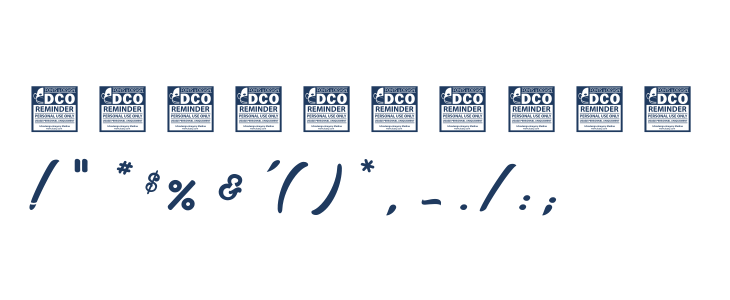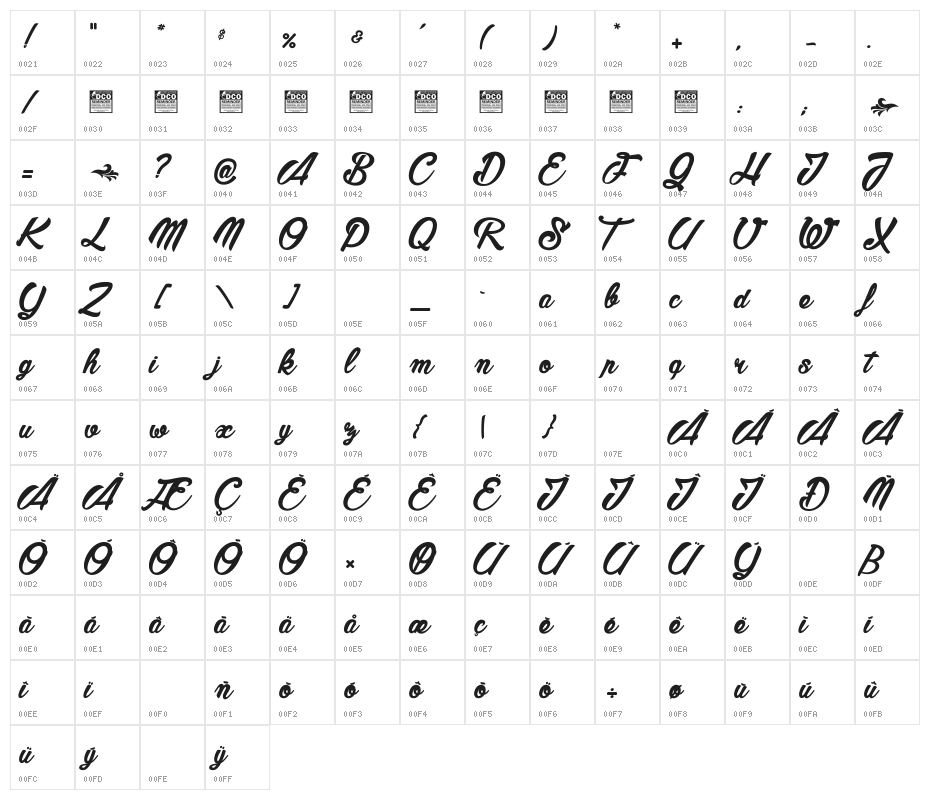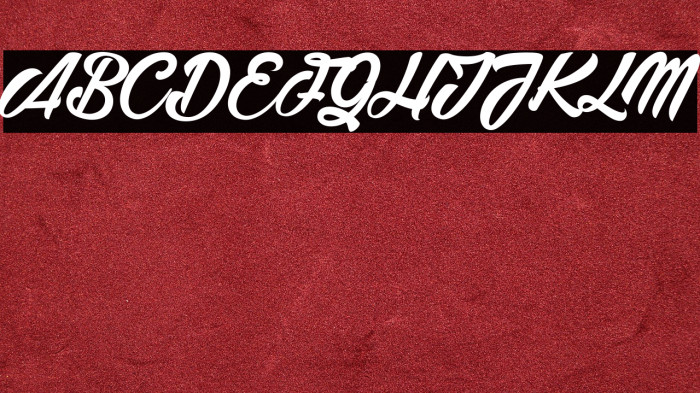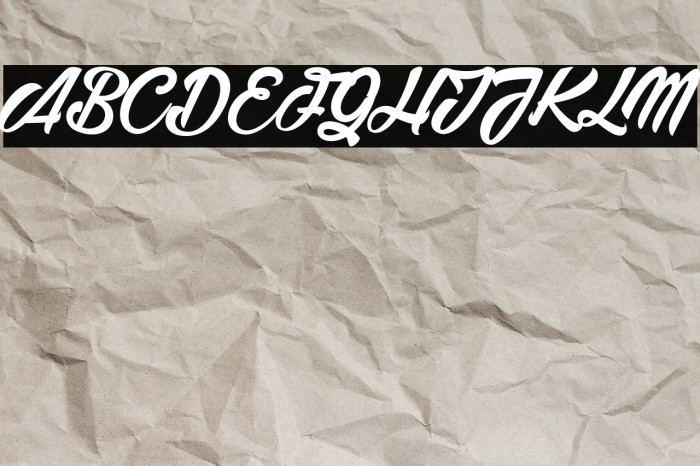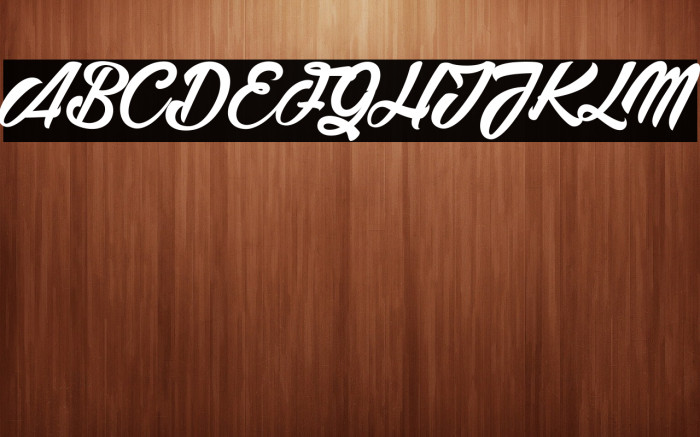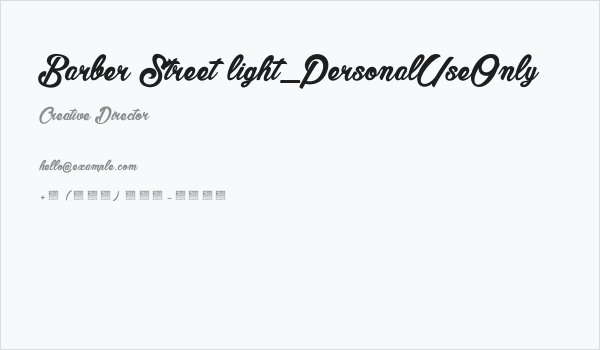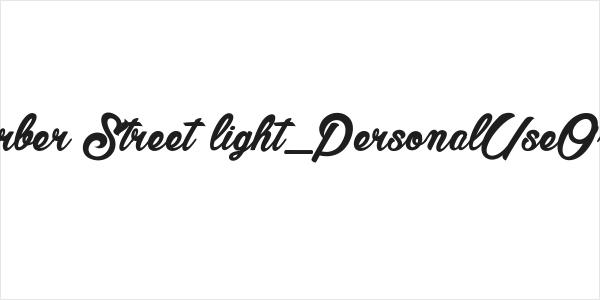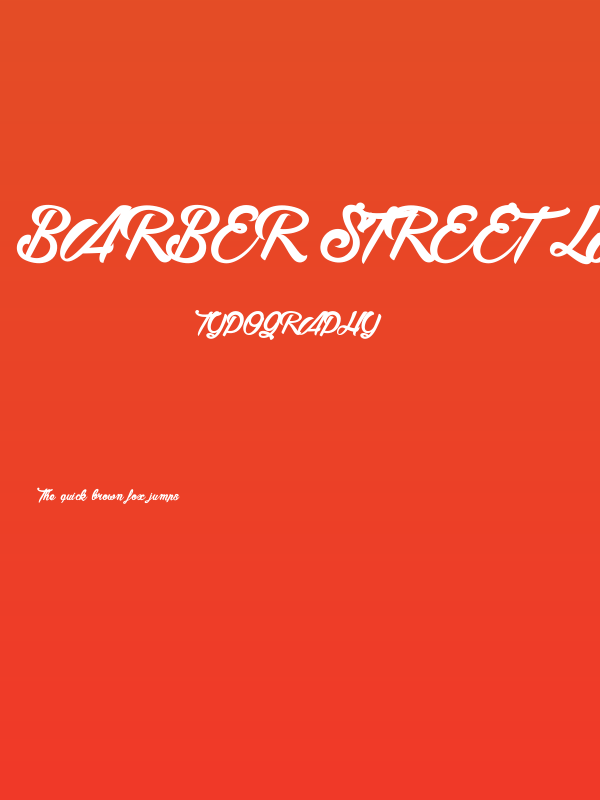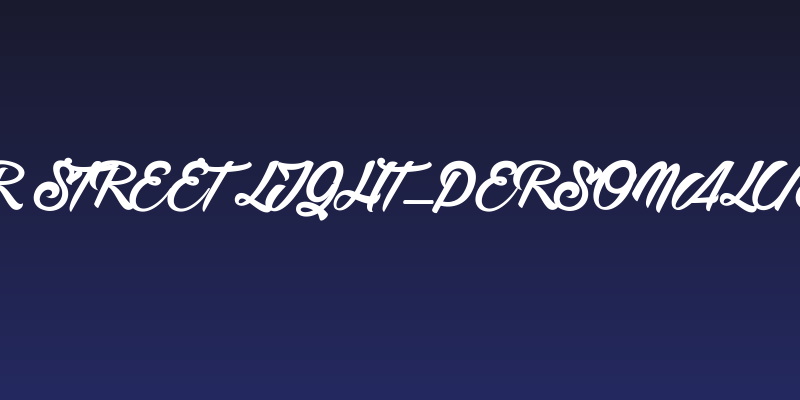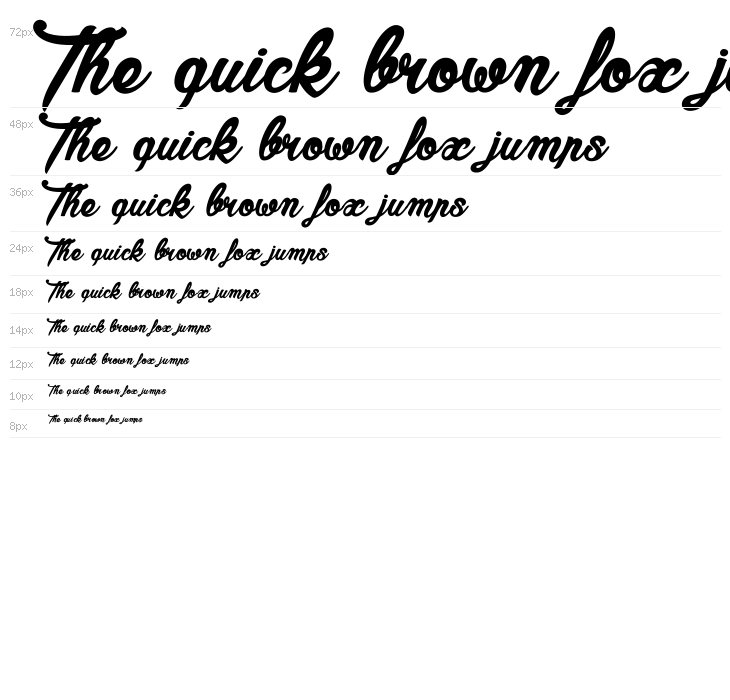
Barber Street light_PersonalUseOnly Font
Barber Street light_PersonalUseOnly Description
This font features a bold, flowing script style that exudes a sense of elegance and sophistication. The characters are interconnected, creating a seamless and fluid appearance. The uppercase letters are particularly ornate, with sweeping curves and flourishes that add a touch of drama. The lowercase letters maintain a consistent style, complementing the uppercase with their smooth, rounded forms. The numbers and special characters are designed to match the overall aesthetic, ensuring a cohesive look across all text. This font is ideal for projects that require a touch of vintage charm and artistic flair.
| Use Case | Logos, Decorative text, Invitations |
| Proposed Projects | Ideal for wedding invitations, branding, logos, and decorative signage. |